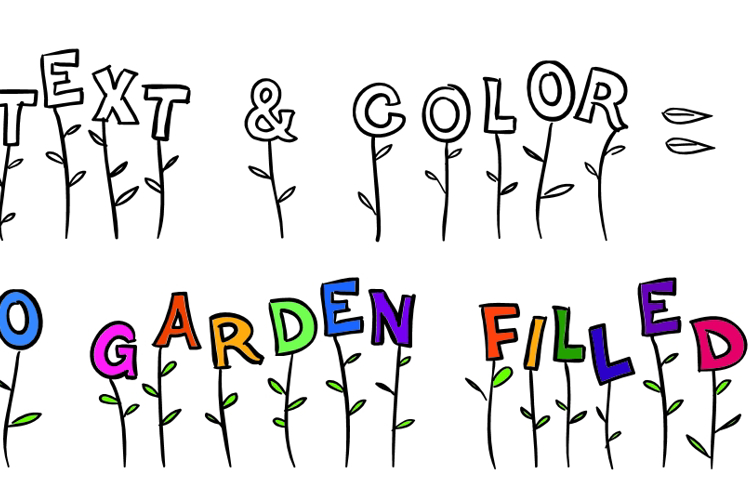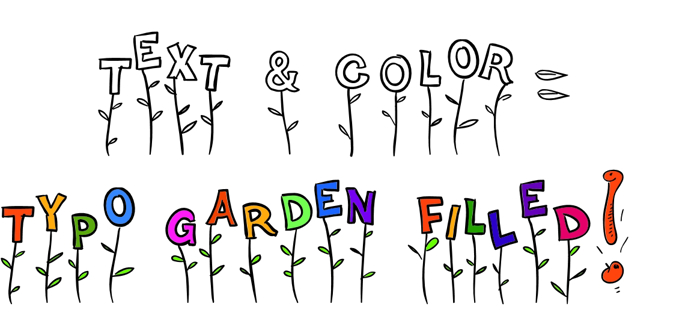
Typo Garden Demo Font
A hand-drawn font with the letters sprouting happily into the sunshine :)
Use it at larger sizes, mixing upper and lower case letters to adjust the look.
SO CUTE! Which key is the butterfly?
Hi DiannR, the butterfly is on the apostrophe.